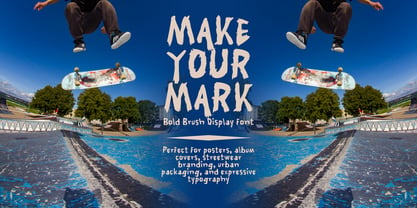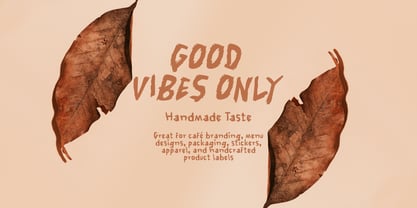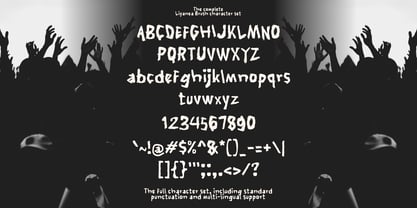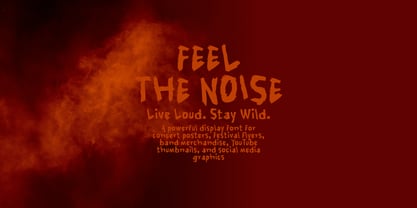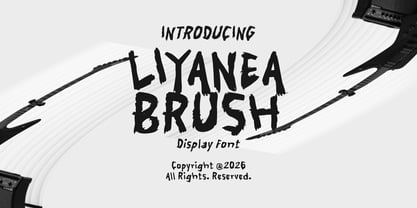
Liyanea Brush
La familia tipográfica Liyanea Brush fue diseñada por Wahyu Eka Prasetya, Mei Suseno y publicada por Mei Suseno. Liyanea Brush contiene 2 estilos y opciones de paquete familiar. Más información sobre esta familia
Liyanea Brush is a bold hand-painted display font that captures the raw energy of real brush strokes. Featuring rough edges, organic textures, and expressive letterforms, this font brings an authentic handcrafted feel to every design. Its powerful character makes it perfect for eye-catching headlines, posters, branding, apparel, album covers, packaging, social media graphics, and creative projects that demand attention.
Whether you're creating urban-inspired artwork, adventurous branding, or bold promotional materials, Liyanea Brush delivers a strong visual impact with its artistic and dynamic style. Add personality, movement, and confidence to your typography with this versatile brush display font.